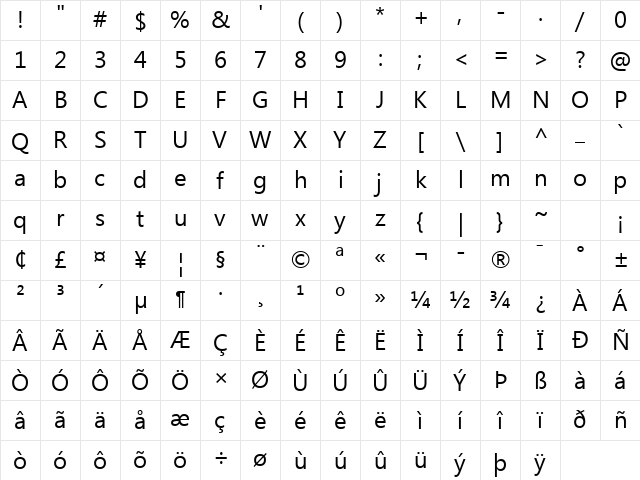
Ebrima Normal
Foundry: Microsoft Corporation
Complete Ebrima Normal glyph index. Displaying only characters natively supported by Ebrima Normal font.
Design Context for Ebrima
Ebrima is a composed and adaptable typeface that performs quietly and consistently across a wide range of design contexts.